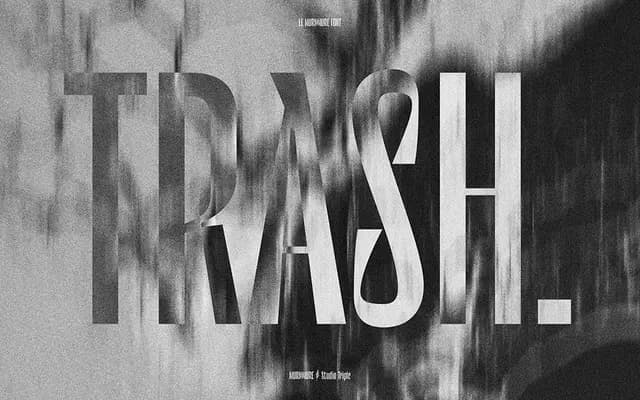
Le Murmure
Studio Triple · 2017
A custom open-source sans-serif drawn for Agence Murmure's brand identity in 2017.
Commissioned as a bespoke typeface for Agence Murmure's visual identity, this geometric sans was subsequently released as open-source. The page offers little further detail on its weight range or feature set, suggesting a focused, single-purpose design rather than a broad type family. Its open-source status makes it freely available for reuse beyond its original branding context.
Described simply as a sans-serif; classified as geometric sans based on the clean, purpose-built character typical of custom identity typefaces from this period.